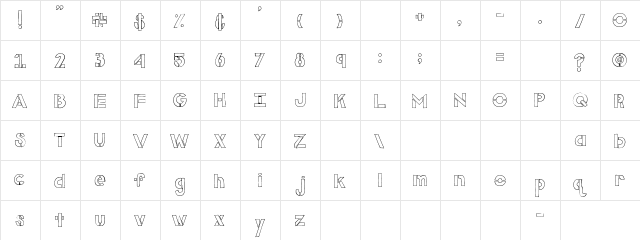
Design Context for SBC Stencil Typeface
SBC Stencil borrows the utilitarian aesthetic of stencil lettering, with its characteristic cutaways and no-frills construction lending an industrial edge.
Ideal for industrial branding, streetwear, military-adjacent aesthetics, and urban signage projects.
Pro Tip: Pair SBC Stencil with raw, utilitarian design elements — exposed concrete textures, flat colour, and minimal ornamentation suit it well.